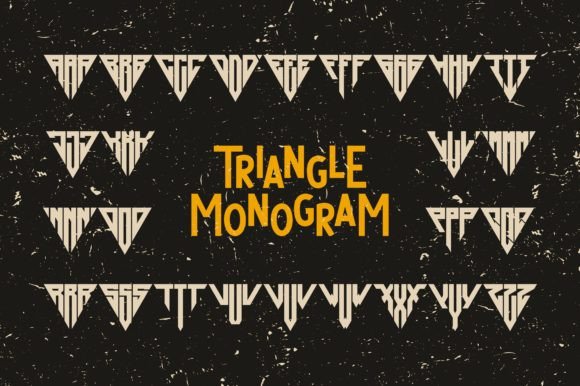
Venture into the realm of exquisite typography with Triangle Monogram, a display font that captivates with its distinct charm and remarkable versatility. This masterpiece, crafted by IntuisiCreative, redefines the art of three-word calligraphy, adding a touch of elegance to every project it graces.
Feel the allure of Triangle Monogram's unique style, where sharp angles and graceful curves entwine to create a visual feast. Each letter dances upon the page, carrying the weight of history and the promise of endless possibilities. Unleash your creativity and let Triangle Monogram guide you towards typographic bliss.
With Triangle Monogram, you'll discover a font that transcends the ordinary. Its PUA encoding grants you effortless access to a treasure trove of glyphs and ligatures, empowering you to weave intricate patterns and breathtaking compositions. Elevate your designs to new heights, enchanting viewers with every stroke and captivating their imaginations with your typographic artistry.
In Triangle Monogram, you'll find the perfect companion for your creative endeavors. Whether you're crafting stunning logos, enchanting wedding invitations, or designing eye-catching social media posts, this font will infuse your projects with a touch of sophistication and timeless beauty. Prepare to be mesmerized by the wonders of Triangle Monogram, where typography becomes an art form and your designs take on a life of their own.